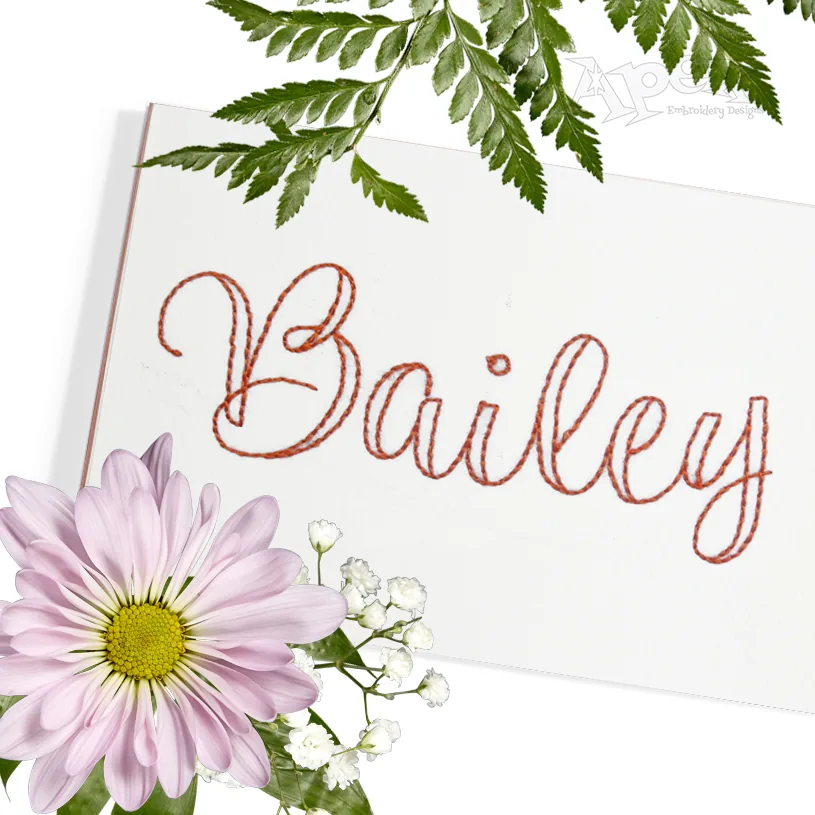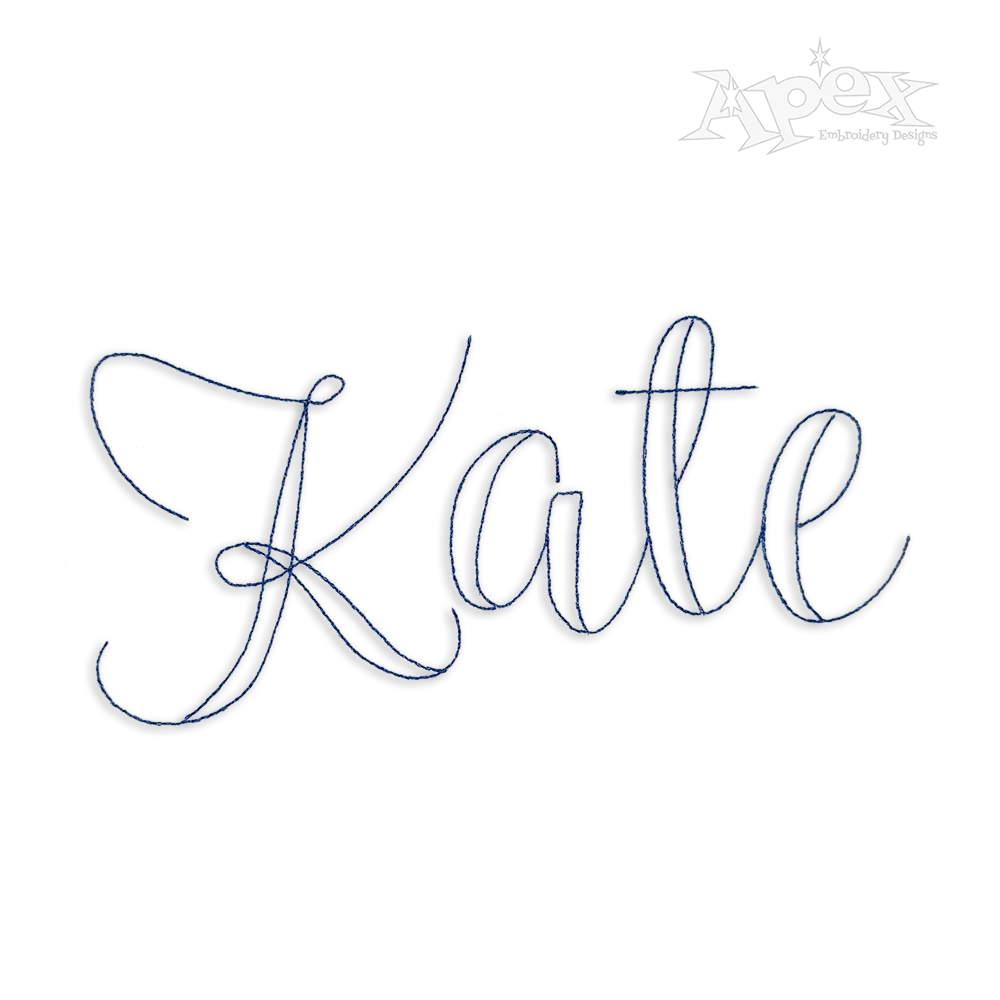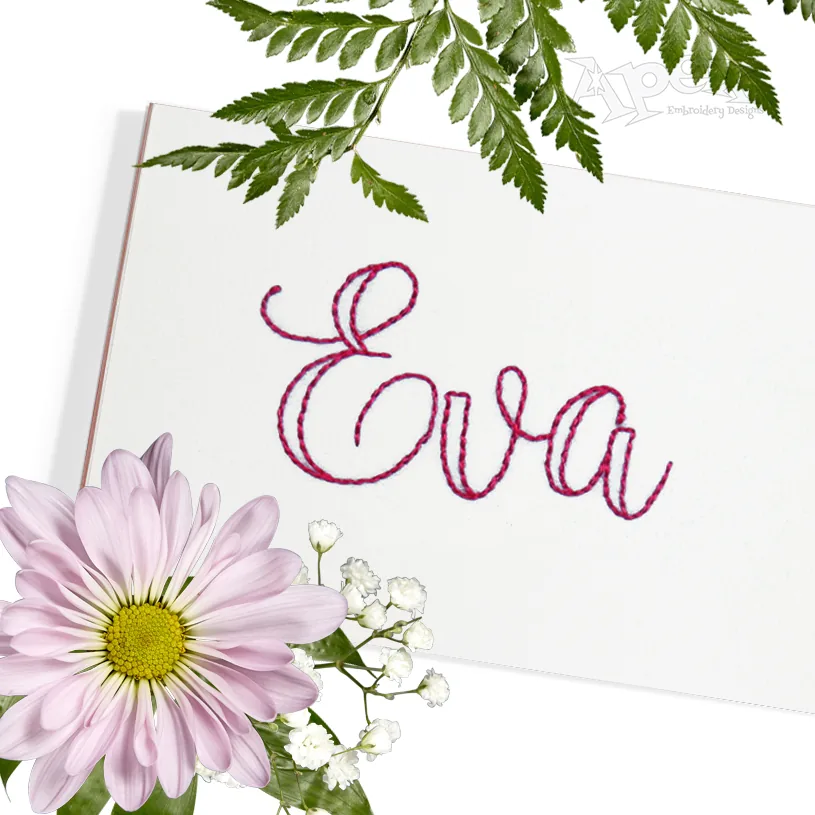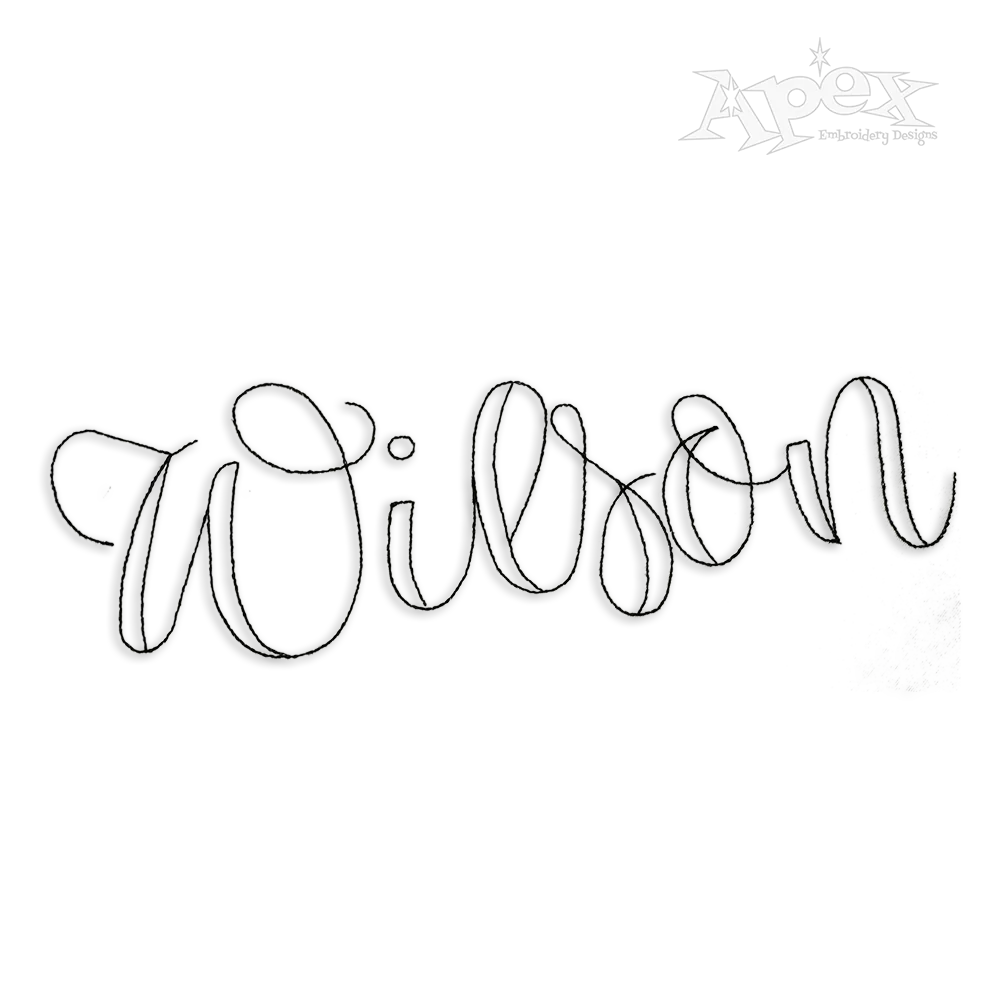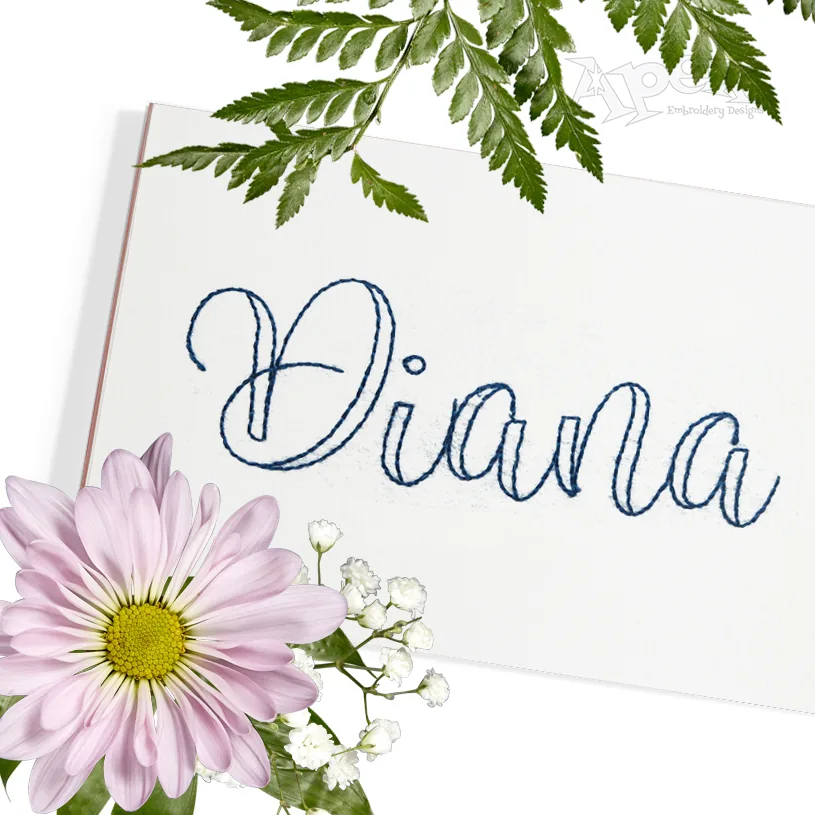
Lylah Sketch Embroidery Font
There is an irresistible, handwritten romance in a sketch stitch—an effortless grace reminiscent of an artist’s journal or an illustrator’s delicate preliminary lines. When digitizing Lylah Sketch, our goal was to capture that breezy, modern casualness and translate it into fluid threadwork. Unlike dense, traditional satin fills that can feel rigid on lighter textiles, Lylah brings an airy, artisanal lightness to fabric, transforming simple letters into whisper-soft sketches filled with subtle texture, natural motion, and understated luxury.
Digitized with meticulous precision to maintain clarity and proportion across diverse scales, the Lylah Sketch font collection includes:
- Four Proportional Sizes: 1-inch, 2-inch, 3-inch, and 4-inch heights for balanced composition on any project scale.
- Complete Character Set: Full uppercase alphabet, lowercase alphabet, and numerals 0 through 9.
Project Ideas for Lylah Sketch
The gentle, open density of Lylah Sketch makes it exceptionally versatile across relaxed, modern textiles that call for personal monogramming without heavy needle build-up:
- Luxury Table Linens: Stitch delicate single-initial monograms onto fringed linen cocktail napkins, dinner runners, and rustic hemstitched placemats.
- Heirloom Nursery Pieces: Create soft, breathable baby blankets, organic cotton swaddles, and keepsake christening gowns where a light hand is essential.
- Bespoke Resort Wear & Loungewear: Personalize gauzy linen button-downs, crisp cotton pajama collars, and matching bridal party robes with featherweight sophistication.
- Casual Personalized Gifting: Elevate canvas market totes, waffle-weave bath sheets, and everyday cosmetic pouches with modern, customized lettering.
Because the sketch styling is visually soft and contemporary, placement can be both classic and playfully modern:
- Corner Diagonal: Angle a 2-inch or 3-inch initial 1.5 to 2 inches from the hemmed point of cocktail napkins or guest towels for an effortless, bistro-chic aesthetic.
- Left Chest & Pocket Tops: Use the 1-inch or 2-inch size directly above a pocket or subtly centered on the left chest of lightweight shirting, cardigans, and knit tees.
- Centered Monograms: Command attention on market totes, pillow shams, and throw blankets with the 3-inch or 4-inch capital letters as a striking, textured focal point.
- Cuff and Hem Details: Align lowercase initials along a shirt cuff or sleeve edge for an intimate, bespoke tailoring touch.
Lylah Sketch Craft & Letterform Details
True sketch embroidery relies on the master digitizer's understanding of direction, rhythm, and breathing room. Each glyph in Lylah Sketch is constructed with deliberately sequenced, directional run-and-fill lines that emulate the stroke of a fine-nib pen. The open-weave fill preserves the natural drape and hand of delicate fabrics, eliminating the bulk and puckering often caused by heavy stitch counts. Clean contour travel lines frame the airy interior hatching, giving each letter crisp legibility from across the room while revealing charming, artisanal detail up close.